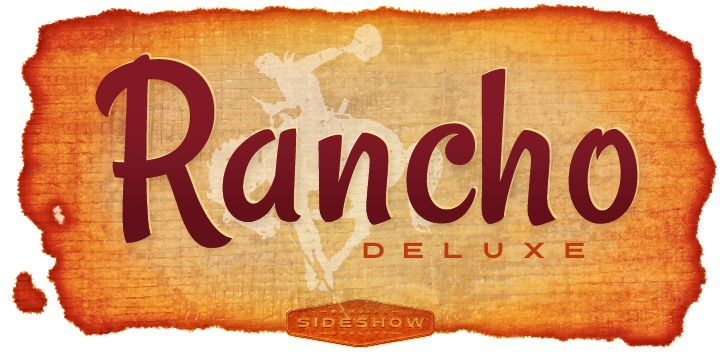
Rancho Deluxe Font
Rancho Deluxe Font is perfect for western-themed branding projects, luxury ranch resorts, authentic barbecue restaurants, cowboy-inspired merchandise, outdoor adventure companies, country music venues, rustic wedding invitations, and premium americana advertising campaigns. This distinguished typeface works magnificently in both digital applications and print media where western elegance and frontier sophistication are paramount design considerations.
What makes Rancho Deluxe Font so exciting is its masterful combination of rugged western heritage with refined luxury aesthetics through carefully crafted letterforms that evoke the golden age of American frontier elegance. The font features sophisticated characters with cowboy proportions, premium curves, and upscale details that communicate both authentic western values and contemporary luxury standards. Its distinguished personality and frontier heritage make it ideal for brands seeking to establish premium positioning in western markets while appealing to audiences who appreciate both authentic cowboy culture and sophisticated lifestyle experiences.
The Rancho Deluxe Font family includes multiple weight variations from regular to bold, along with decorative alternates and western ornamental elements. Each style maintains the typeface's luxurious western character while offering comprehensive character sets including premium numerals, ranch-inspired punctuation marks, and special symbols designed to enhance western luxury communications and authentic americana branding efforts across various frontier contexts.
This extraordinary typeface represents the perfect fusion of western tradition and contemporary luxury design for hospitality and lifestyle industries. Whether you're developing luxury dude ranch identities, creating premium western restaurant materials, or designing upscale country music promotions, Rancho Deluxe Font Free Download delivers the sophisticated western charm and versatility needed to attract discerning audiences seeking authentic luxury experiences. The font's ranch heritage makes it particularly effective for luxury resorts, premium steakhouses, western fashion brands, and businesses celebrating the refined side of American frontier culture.
The meticulously crafted western details and optimized luxury performance in Rancho Deluxe Font ensure both authentic charm and premium appeal across all applications. Its sophisticated presence makes it perfect for upscale western branding, luxury frontier marketing materials, and premium americana communications where its full rancho deluxe character can create memorable impressions and establish immediate association with western elegance and frontier sophistication.